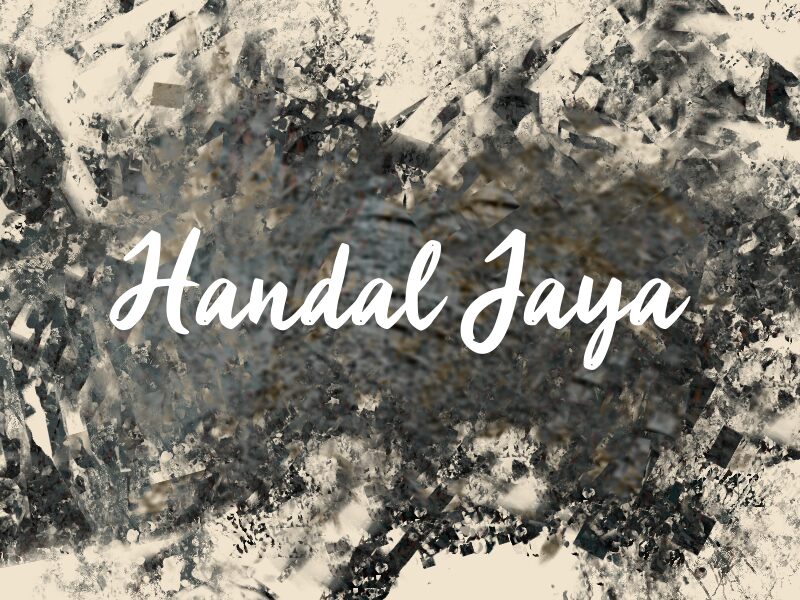
Handal Jaya
Handal Jaya font is developed by wep with handwritten calligraphy that captures the boldest styles combined with a classic touch. Every single aspect of the font is carefully designed to create an excellent final result in any typographic context and usage scenario. The contemporary typeface features a lively look resulting in genuine clean text characters.